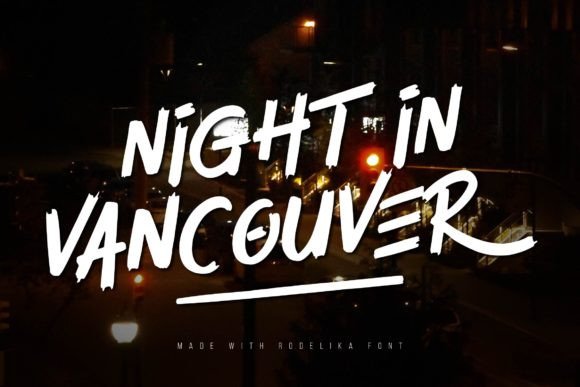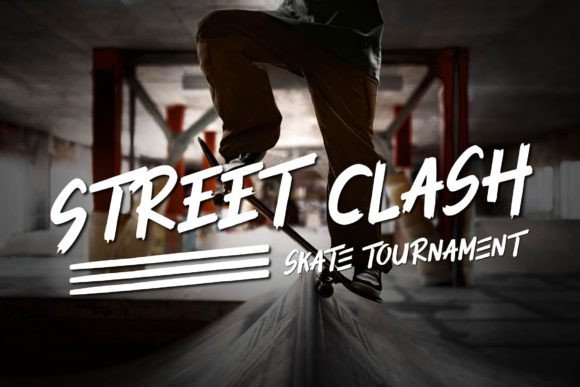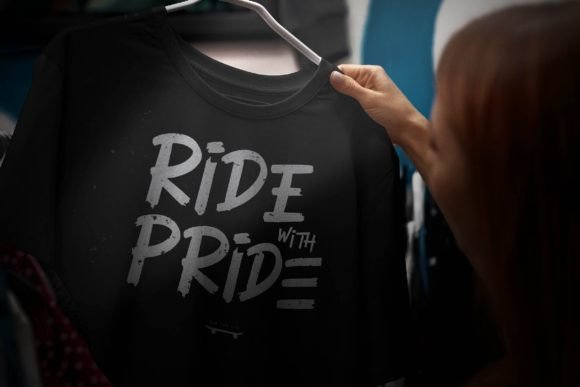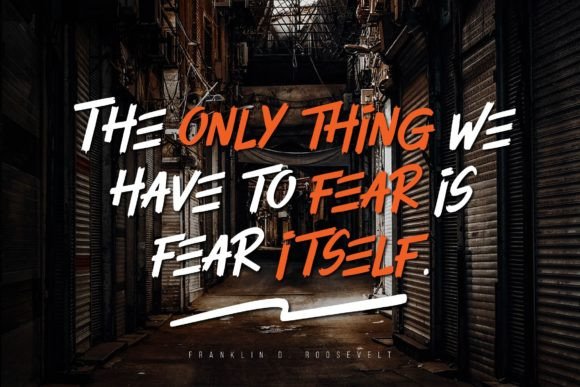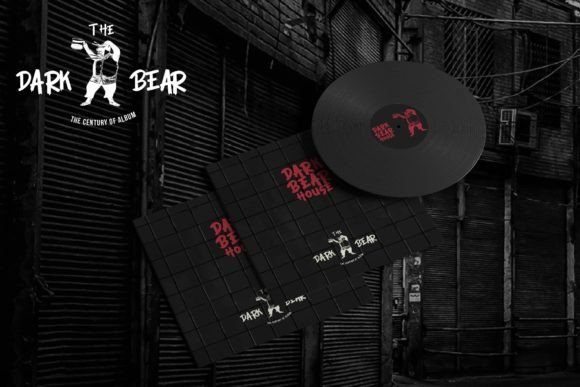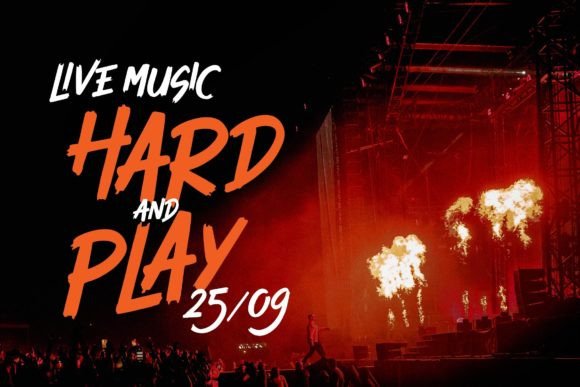
Introduction to Rodelika Font Font
Fonts play a crucial role in design, and the Rodelika Font font is a typeface that brings both character and versatility to any project. Whether you’re working on a branding project, a website, or a print design, the Rodelika Font font offers a unique style that can elevate your work.
Rodelika is a modern brush designed for easy and smooth painting.
Key Features of Rodelika Font Font
Why Choose Rodelika Font Font?
The Rodelika Font font is more than just a typeface – it’s a design tool that helps you communicate your message with style and clarity. Its unique character set and versatile design make it suitable for a wide range of applications, from elegant invitations to bold headlines.
With its carefully crafted letterforms and balanced proportions, the Rodelika Font font ensures readability and visual appeal across all mediums.
What makes Rodelika Font font special?
The Rodelika Font font stands out with its unique design, exceptional readability, and versatility across various design applications.